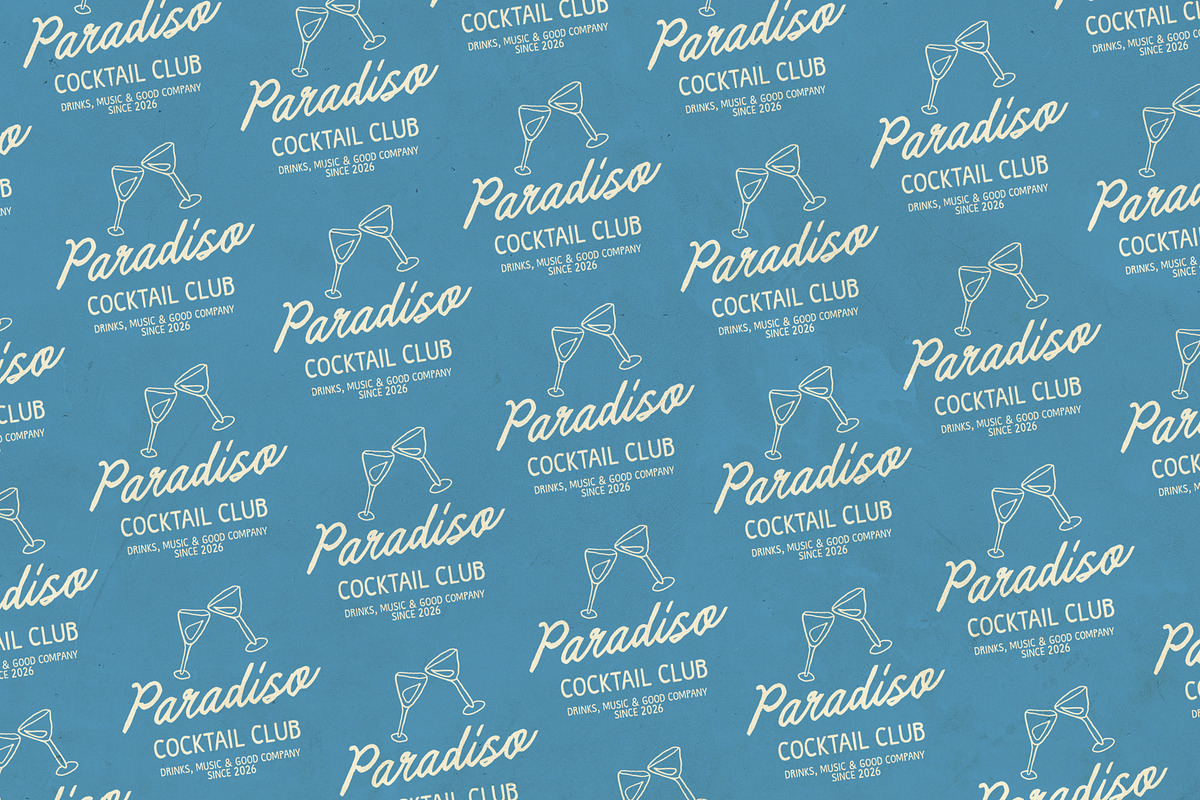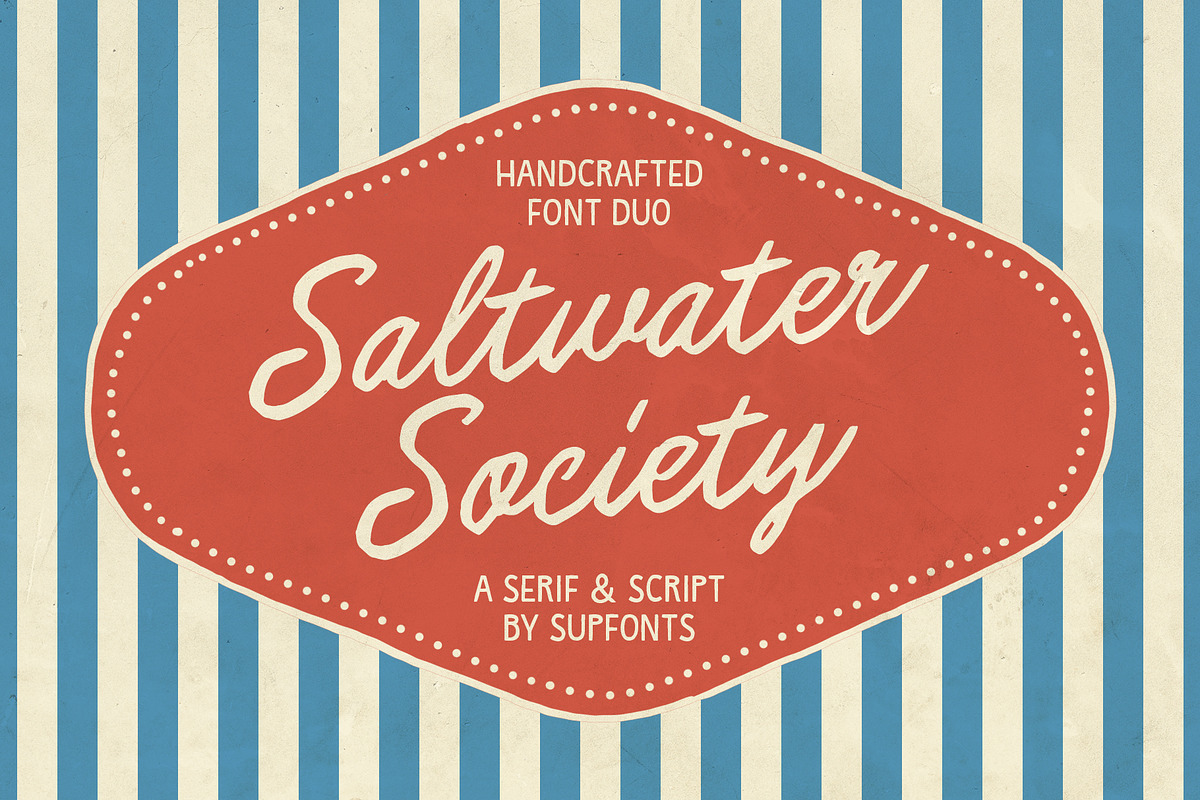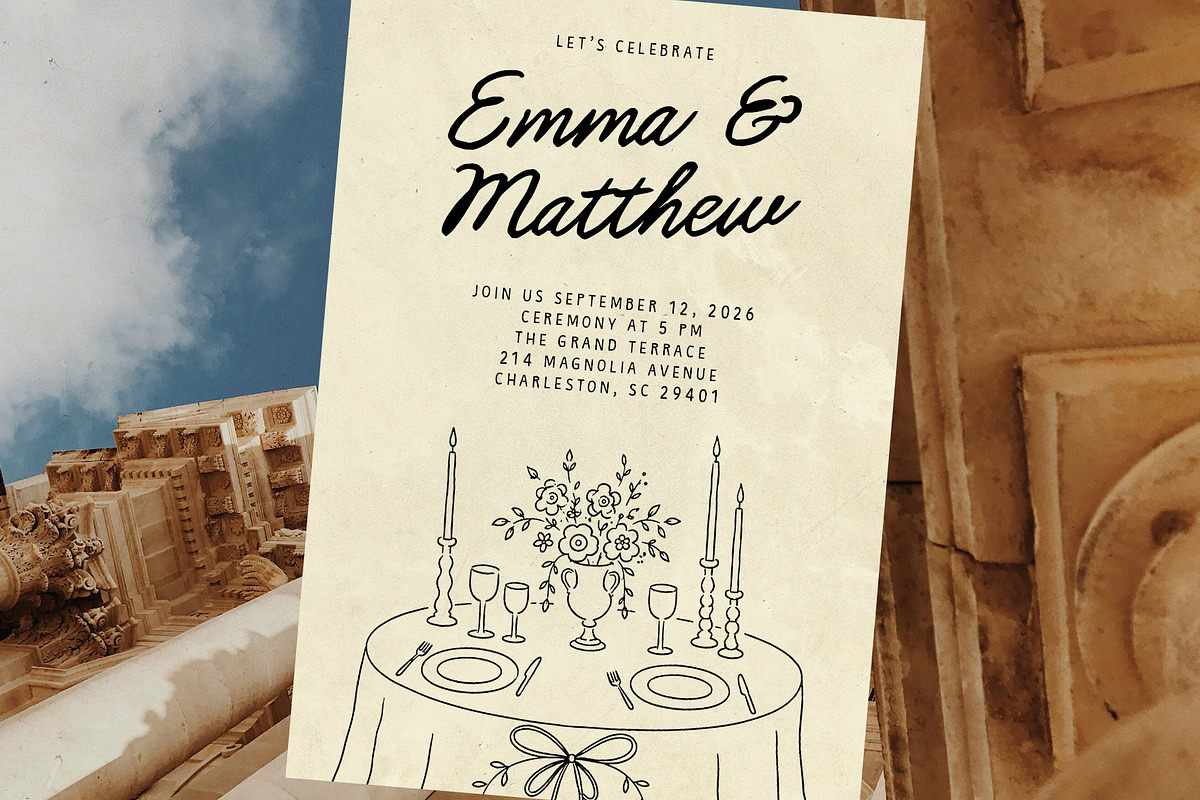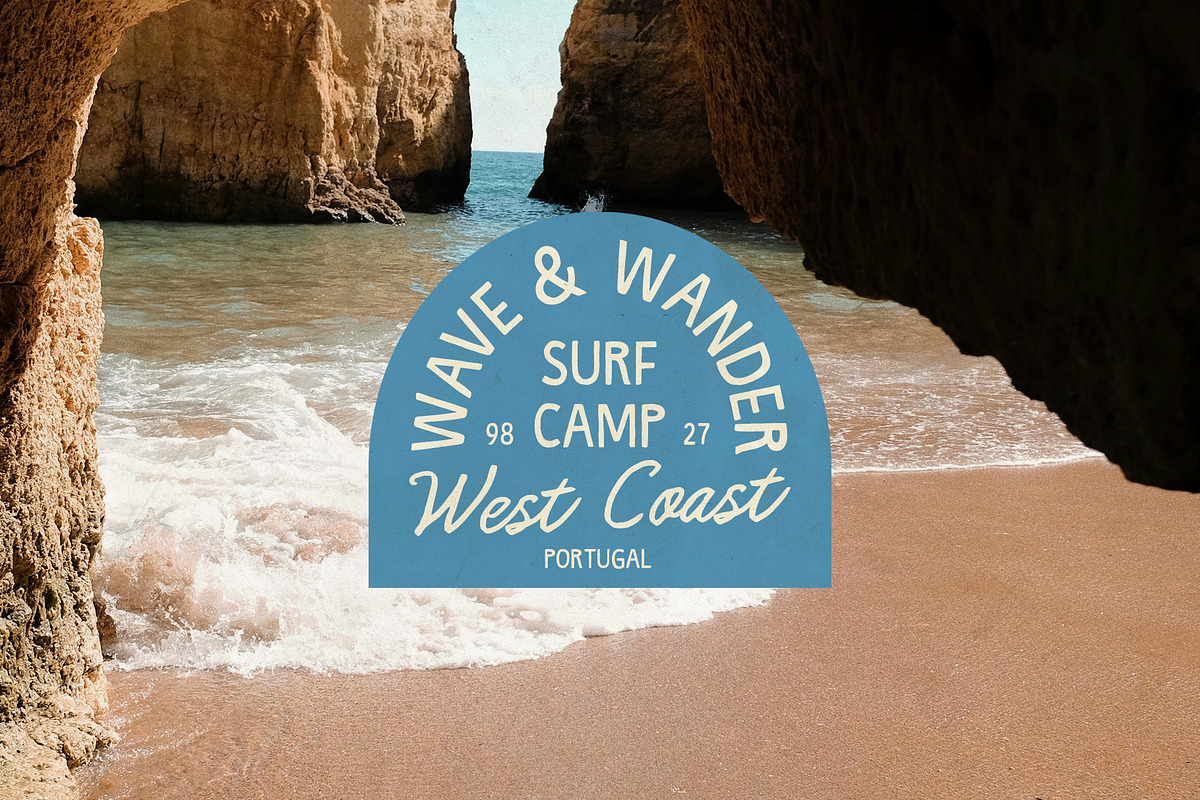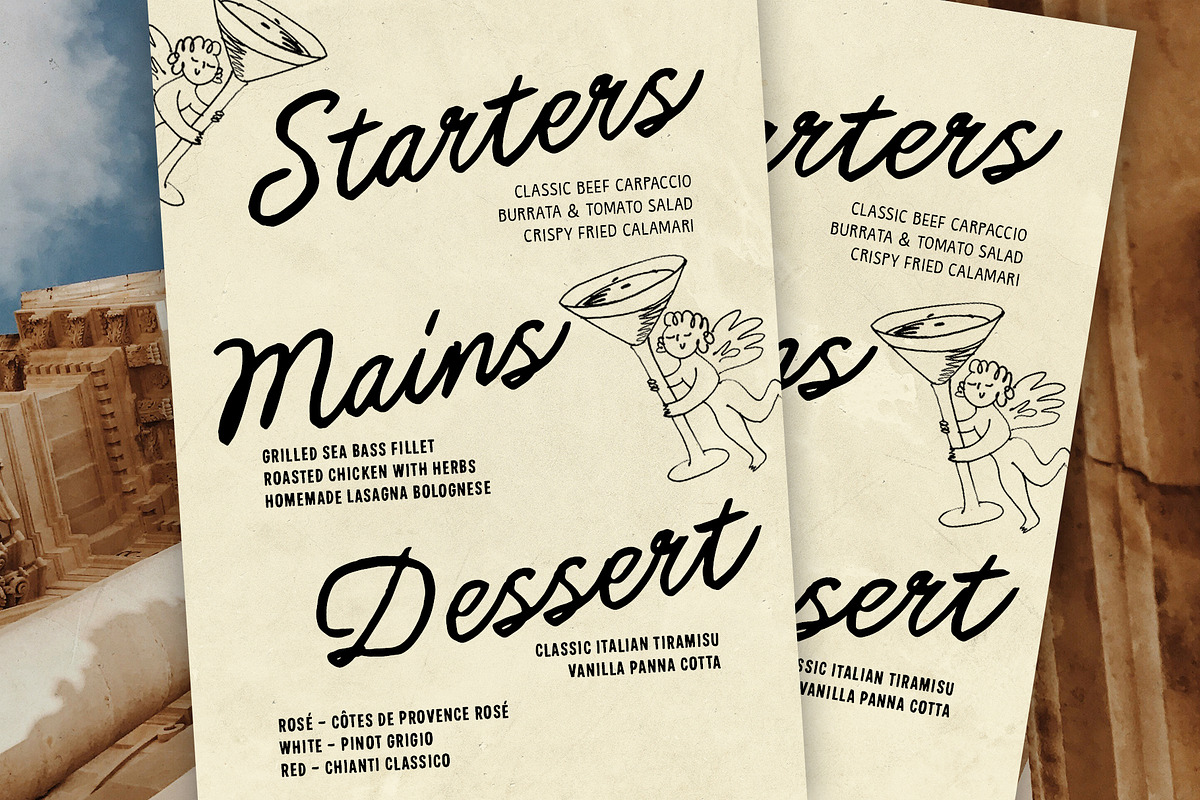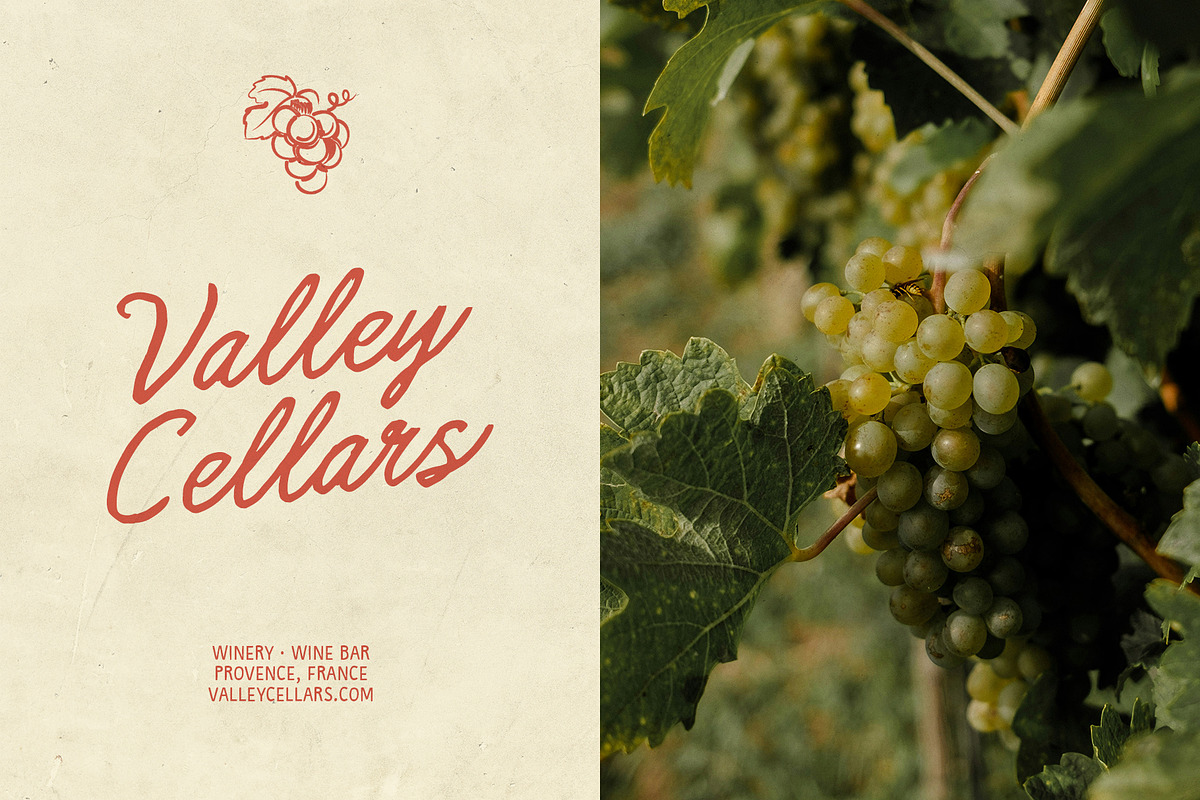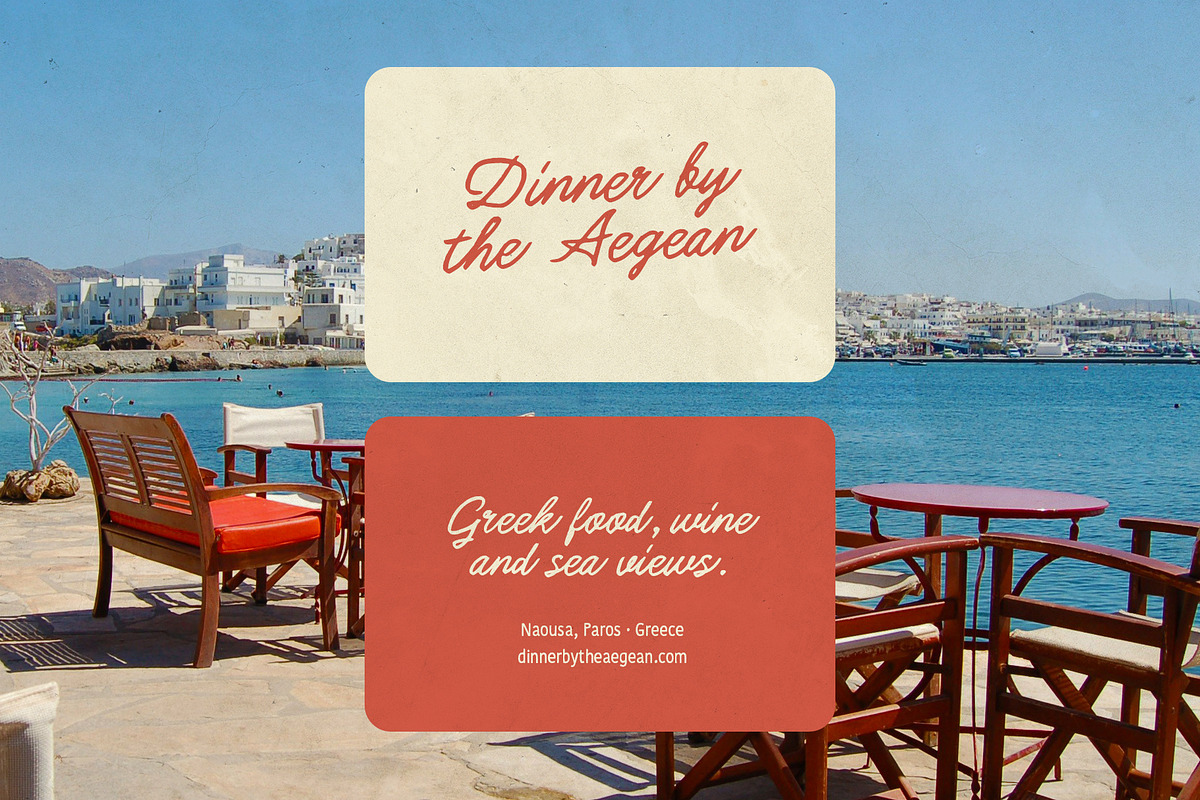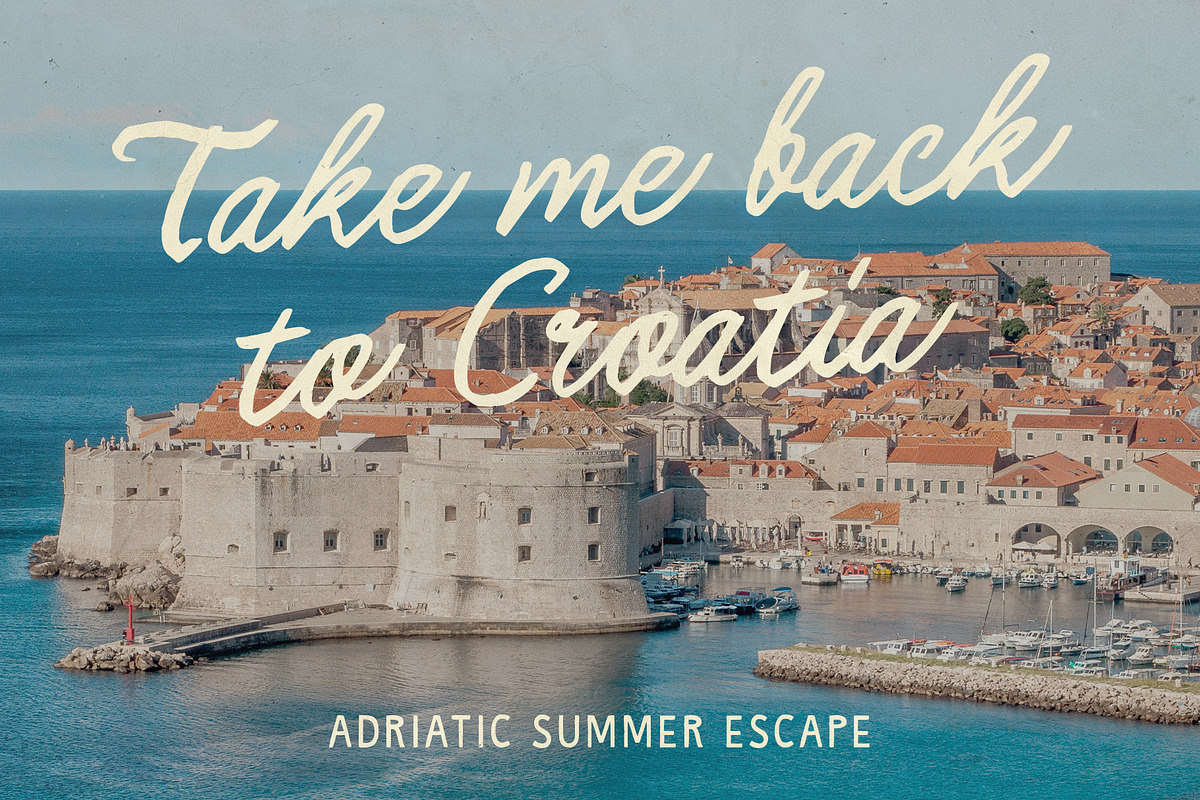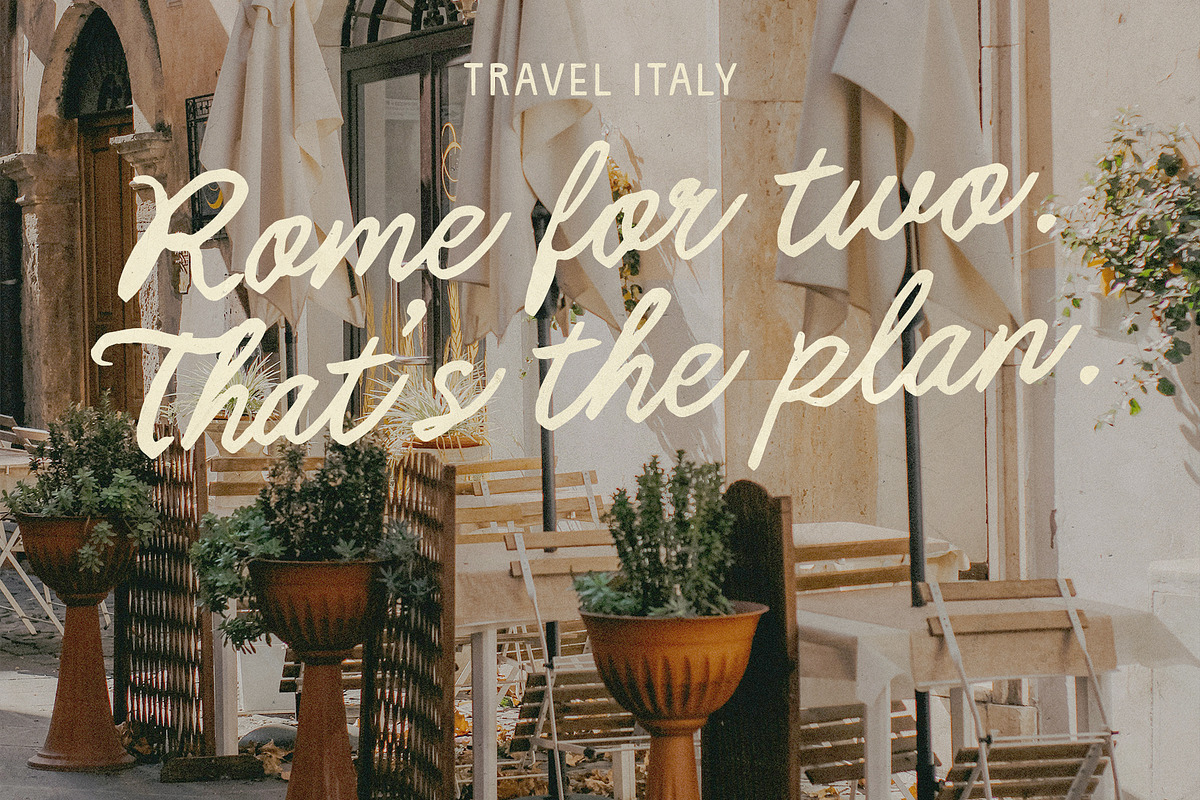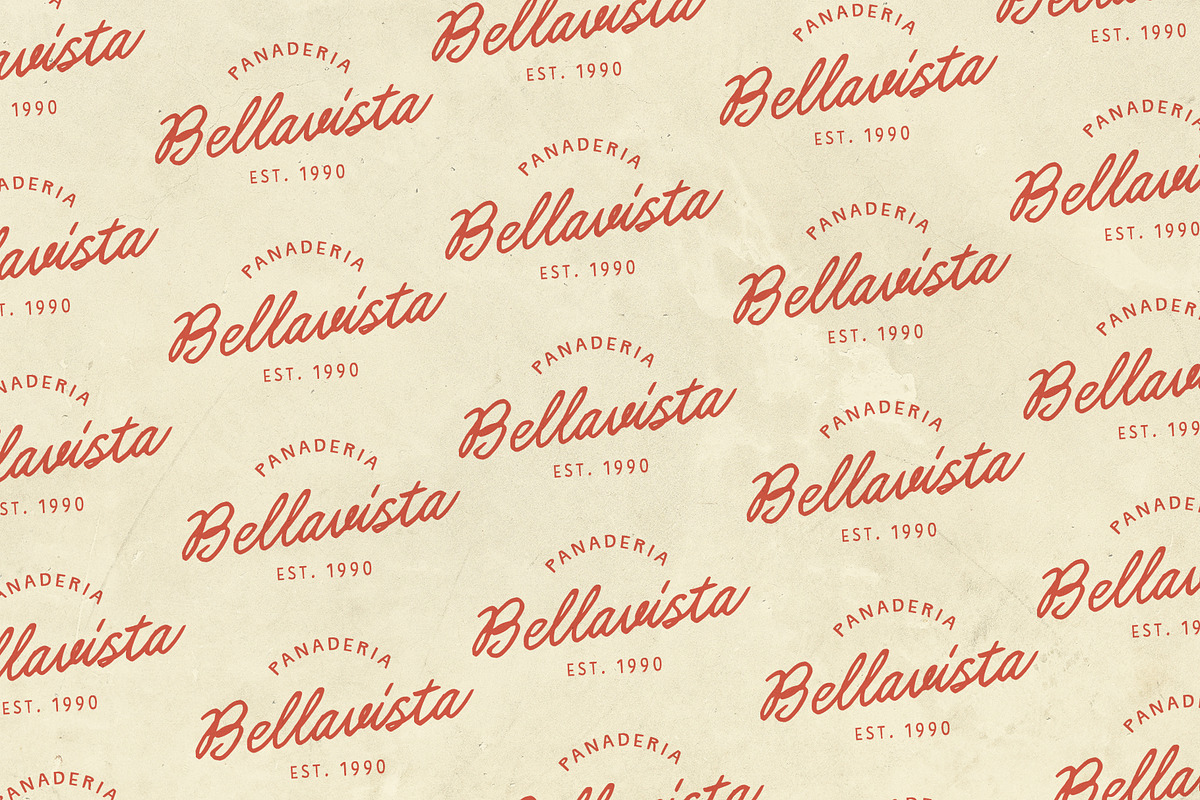
Saltwater Society
Meet Saltwater Society - a relaxed font duo with a nostalgic, sun-faded character.
Inspired by vintage beach clubs, old restaurant menus, travel postcards, hand-painted signs and retro packaging, Saltwater Society combines an expressive handwritten script with a clean condensed sans serif. The script adds movement and personality, while the sans keeps layouts balanced, simple and easy to read.
The result feels vintage without looking dated perfect for branding, packaging, menus, invitations, travel graphics, posters, editorial layouts, apparel and social media.
* Saltwater Society Script
* Saltwater Society Sans
* Uppercase & lowercase
* Numbers & punctuation
* Extended Latin multilingual support
Perfect for coastal brands, restaurants, bars, wineries, weddings, resorts and retro-inspired lifestyle projects.